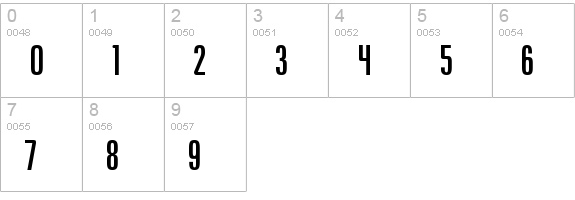
Qirof Font Details
Qirof font is a stunning typeface that exudes elegance and sophistication. With its clean lines and delicate curves, this font is perfect for adding a touch of class to any design project. Whether you're creating a logo, designing a website, or crafting a beautiful invitation, Qirof font is sure to impress. One of the best things about Qirof font is that it is free. Yes, you read that right - this incredible font is freely available to download at FontsMarket.com. This means that you can elevate your designs without breaking the bank. The creators of Qirof font believe that everyone should have access to high-quality typography, and they've made it their mission to provide this font to the world for free. But don't be fooled by its price tag - Qirof font is not just any ordinary free font. It is meticulously crafted, with attention to detail and a focus on legibility. Each letter is thoughtfully designed, ensuring that your text is easily readable and visually pleasing. The versatility of Qirof font allows it to be used in a wide range of projects, from branding to editorial design, making it an essential addition to any designer's toolkit. With Qirof font, you can take your designs to the next level. Its timeless beauty and modern appeal make it a standout choice for any project. So why wait? Head over to FontsMarket.com and download Qirof font today. Embrace the power of free typography and let Qirof font be the star of your next creative endeavor.